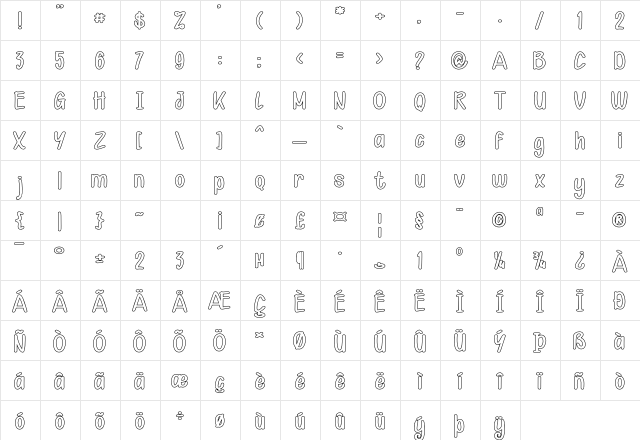
Kid Knowledges 1 outline Regular Font Preview
Kid Knowledges 1 outline Regular
Design Context for Kid Knowledges 1 outline Typeface
Kid Knowledges 1 outline brings ornamental detail and strong personality to headlines and identities, where visual impact matters more than quiet functionality.
Font Pairing: Pair with a clean neutral sans-serif for body copy to let Kid Knowledges 1 outline's character lead without overwhelming the composition.